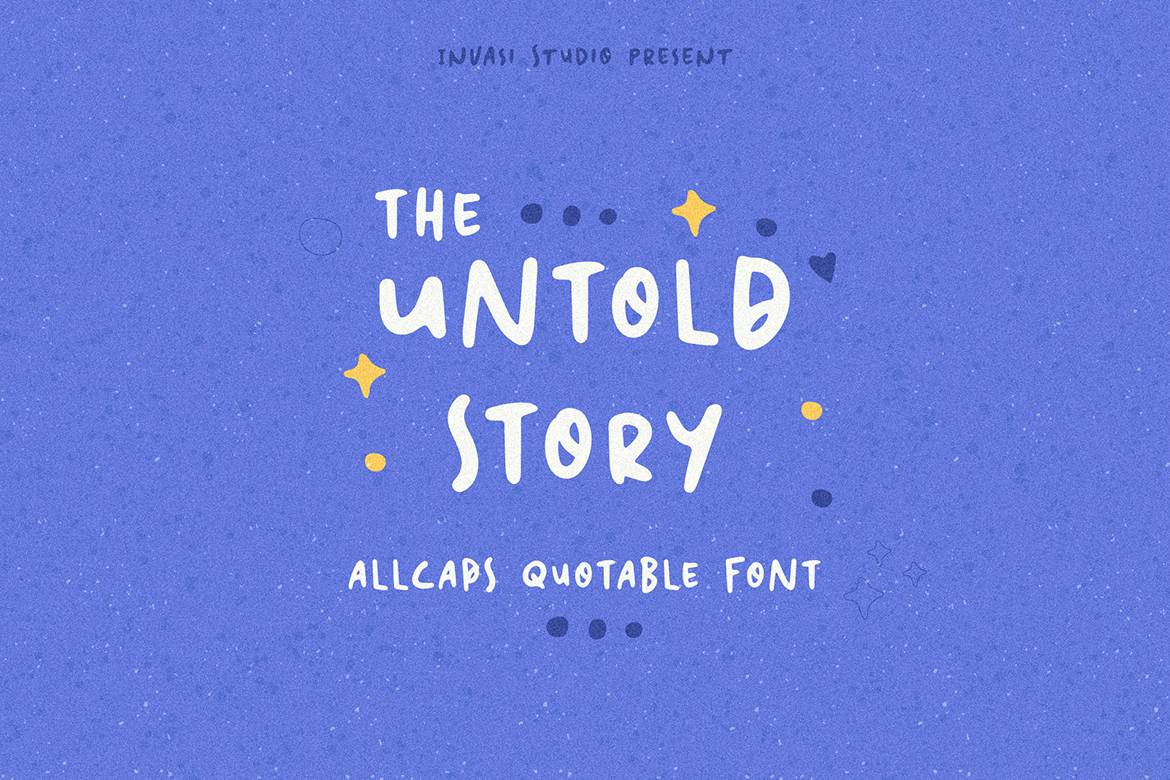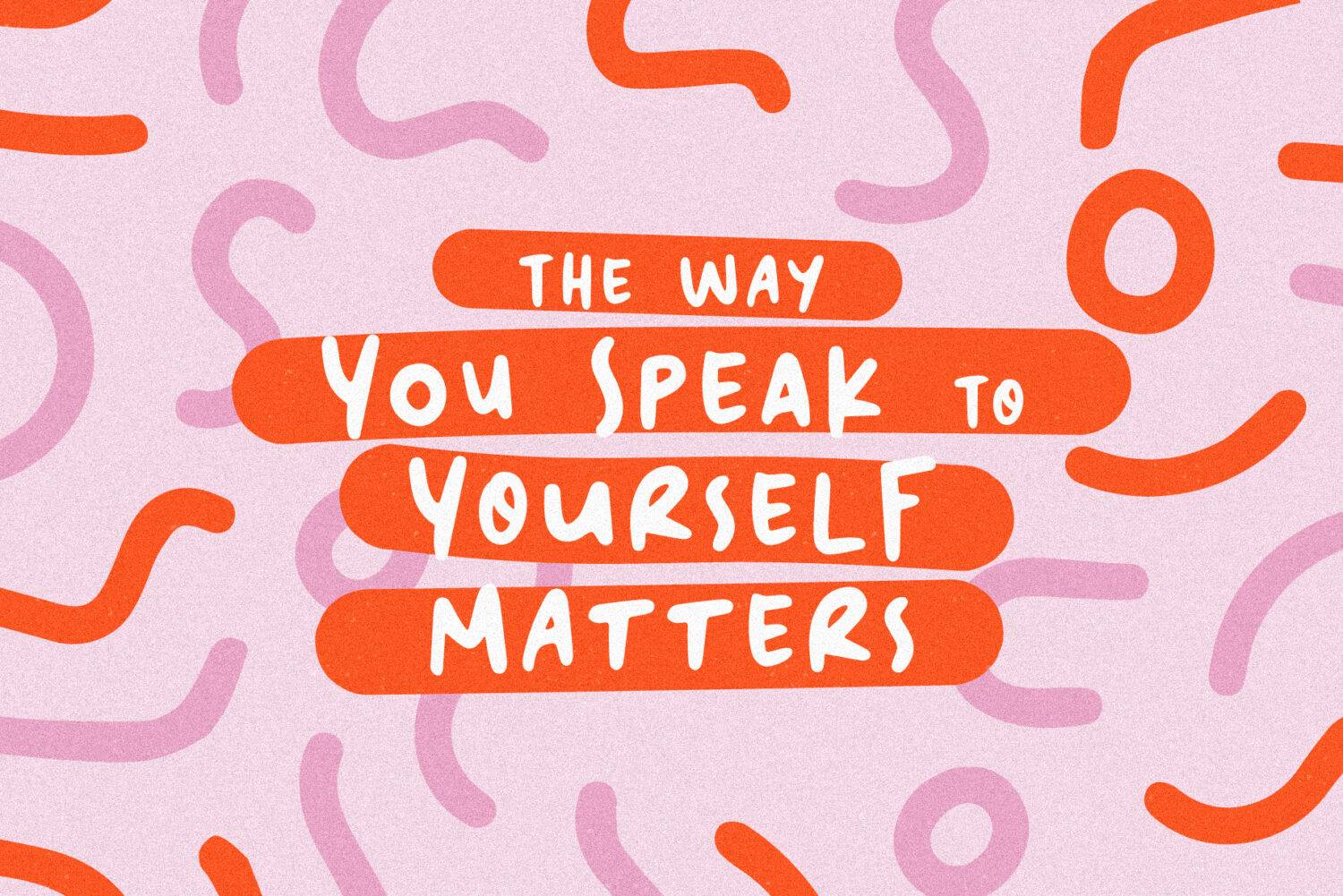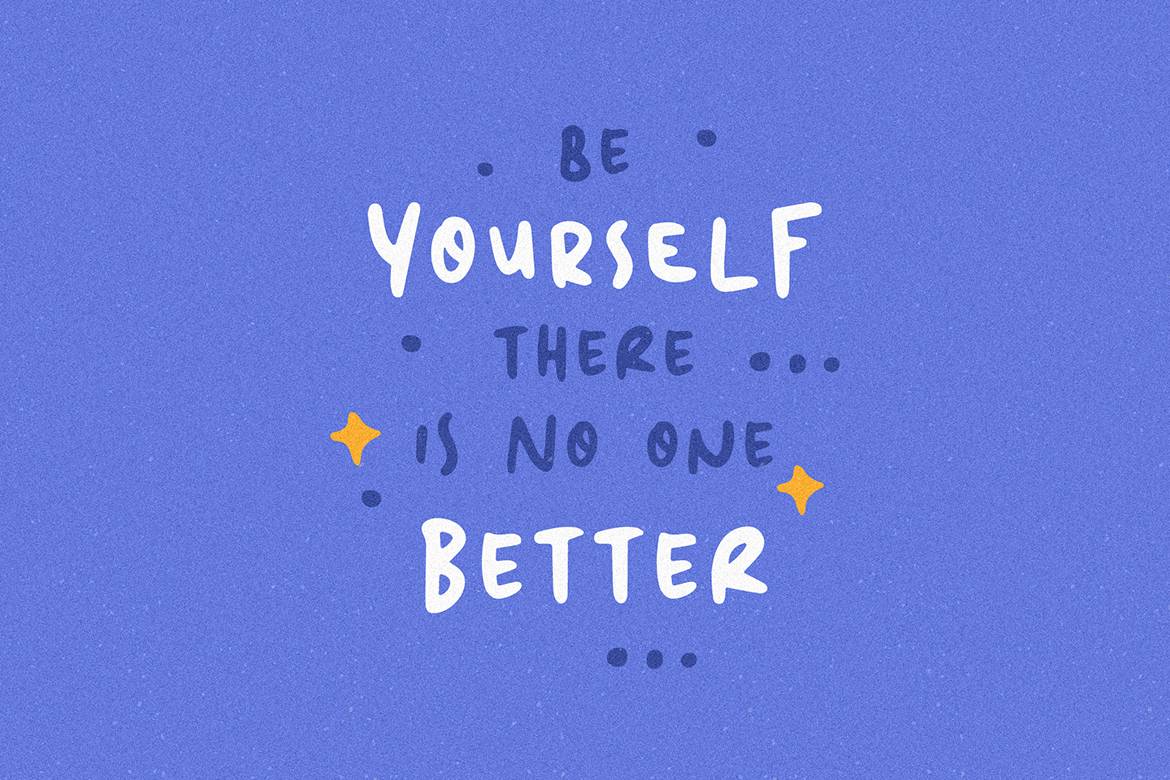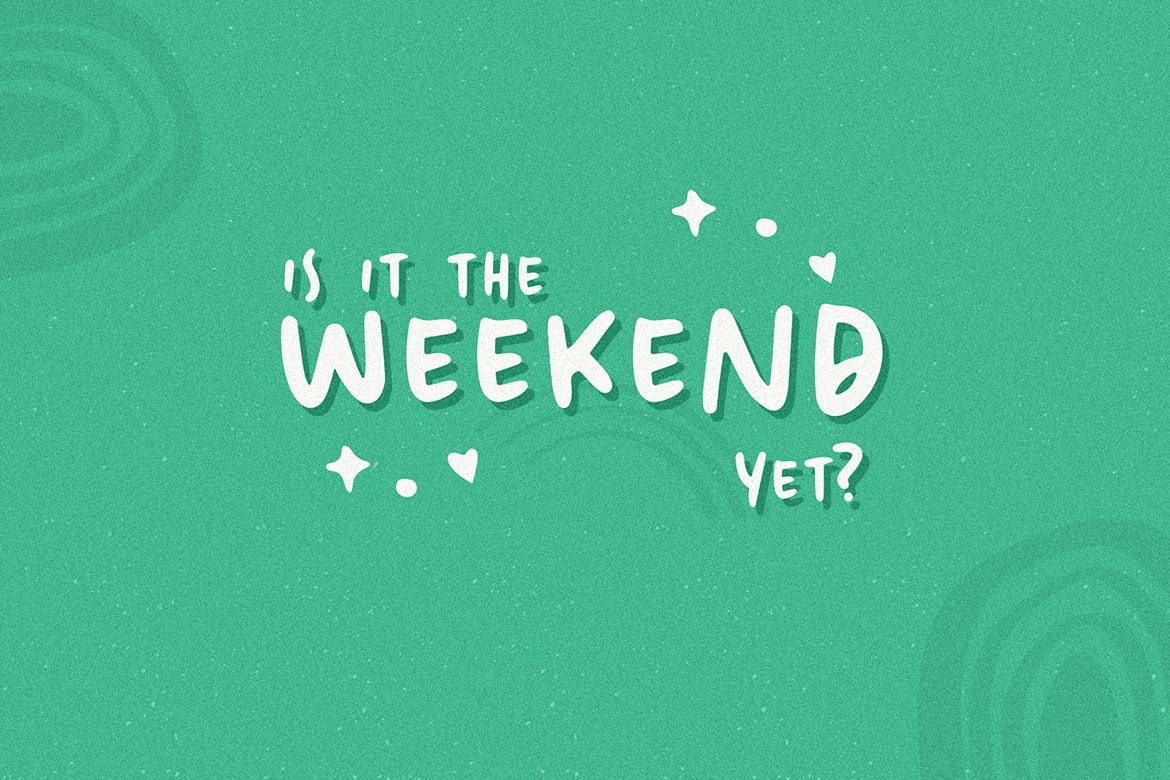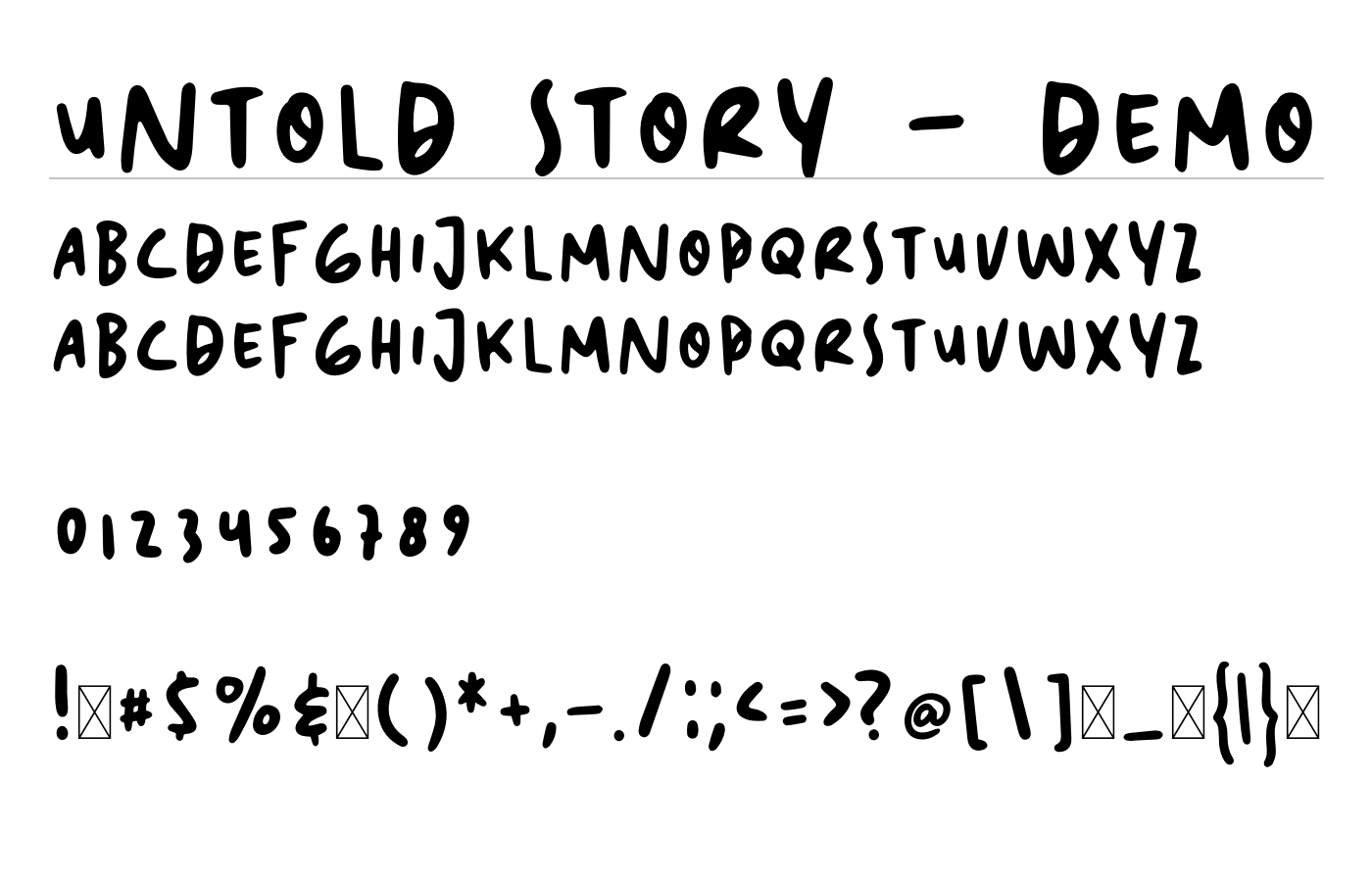
Untold Story is a playful, hand-drawn sans serif font with a casual and friendly vibe, featuring irregular, slightly bold strokes and quirky letterforms that add personality and charm. Its uneven yet clear characters make it perfect for creative projects, informal branding, or children’s content where a warm, approachable feel is desired. This font works well in headlines, posters, and packaging where a unique, handcrafted look can capture attention and convey a fun, storytelling mood.
Untold Story Font
About Untold Story Font
| Font family | Untold Story Font |
| Designer | Invasi Studio |